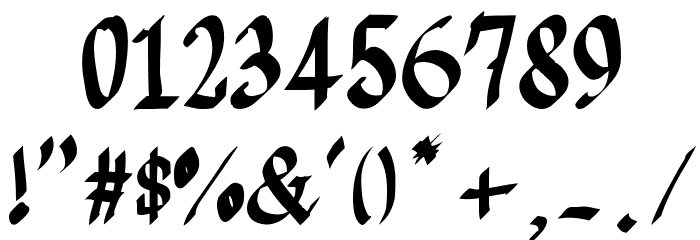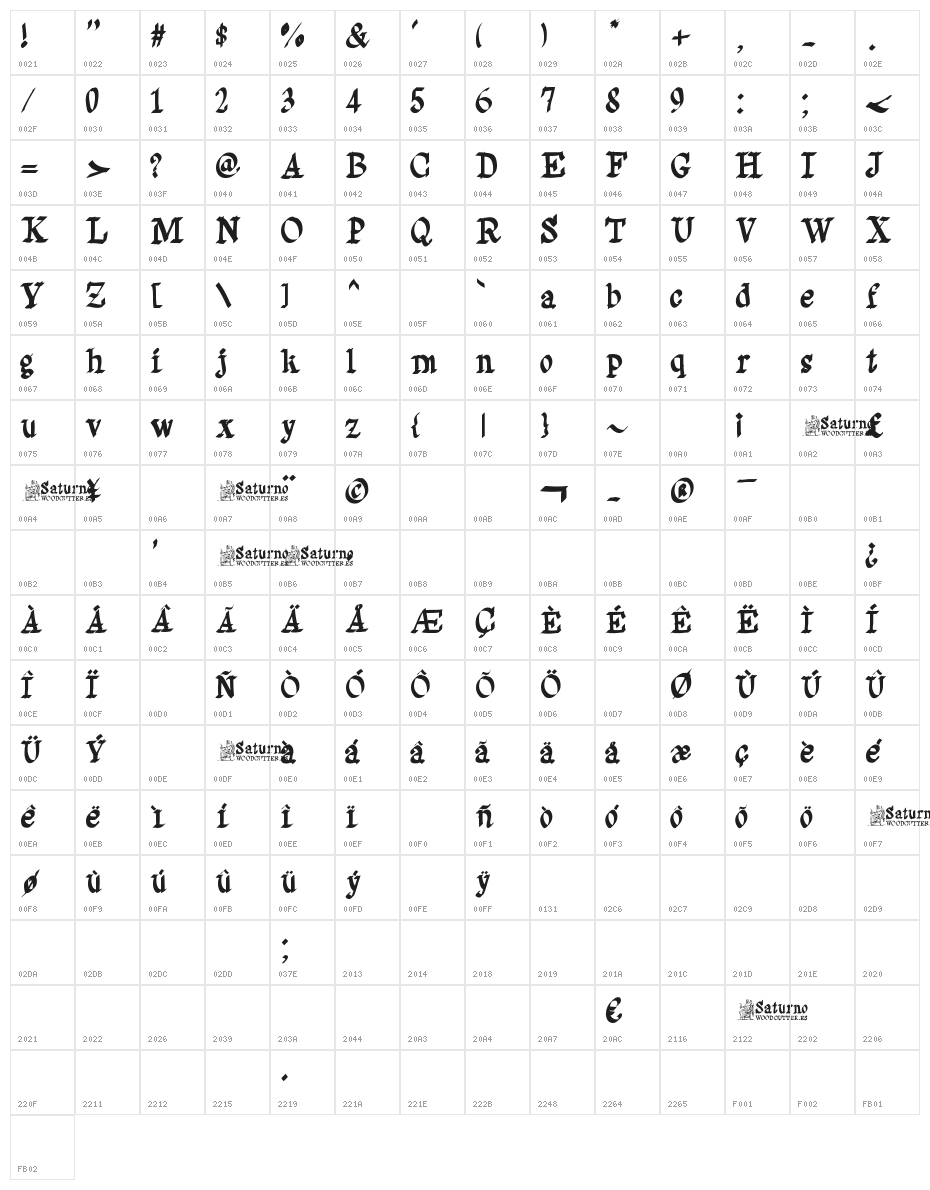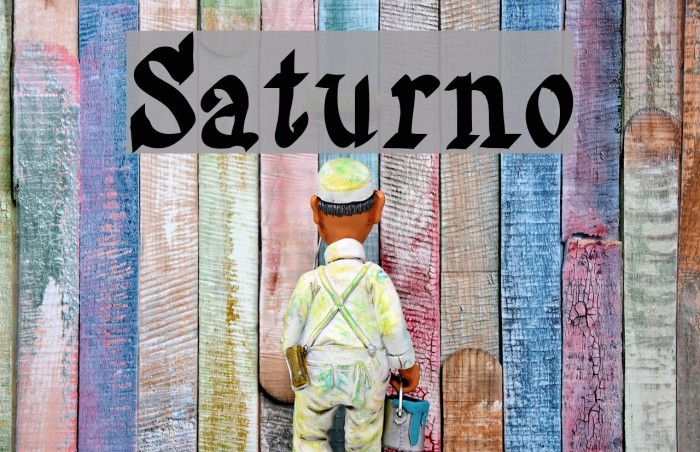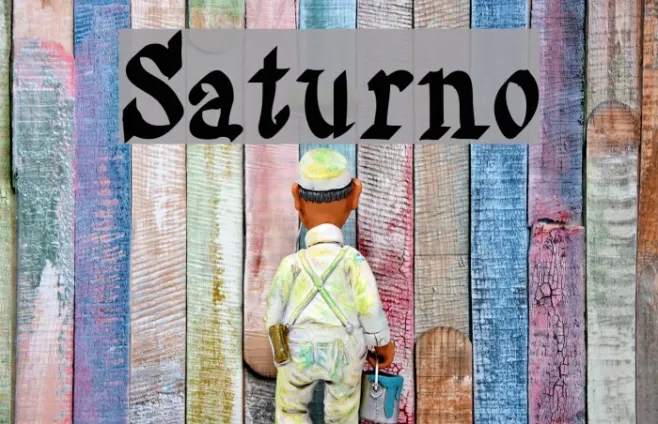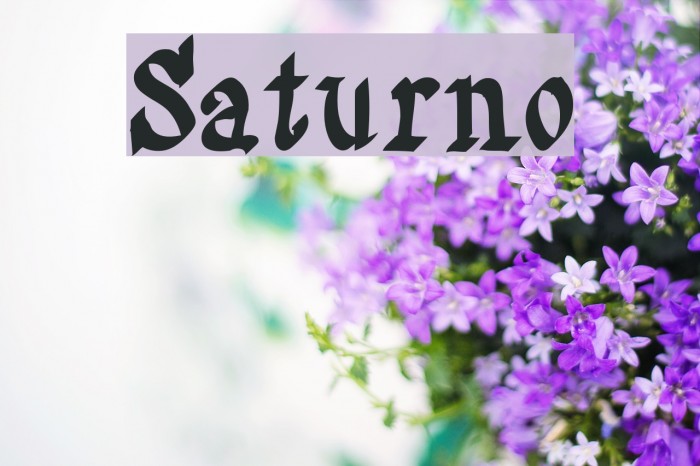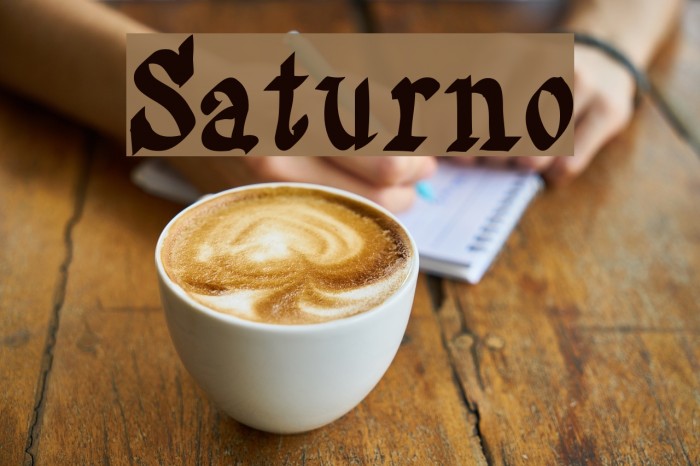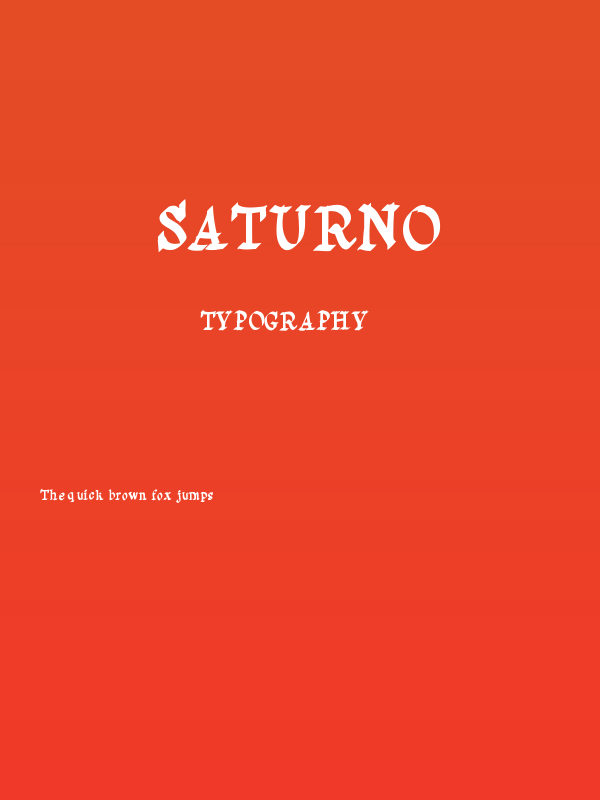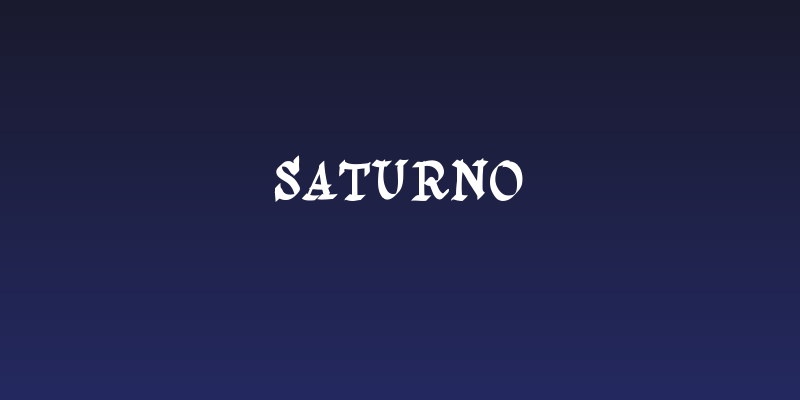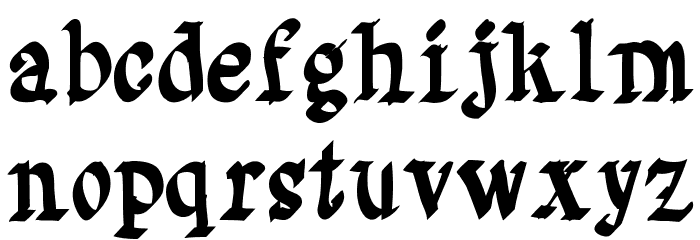
Saturno Font
Saturno Description
This font features a bold and dynamic style with sharp, angular serifs and a distinct medieval flair. The uppercase letters exhibit a strong presence with their pronounced serifs and slightly condensed forms, while the lowercase letters maintain a cohesive look with a touch of elegance. The numerals are bold and consistent, matching the overall aesthetic of the alphabet. Special characters are crafted with the same attention to detail, ensuring a uniform appearance across all glyphs. The font's unique style makes it suitable for projects that require a historical or gothic touch, while its readability ensures it remains functional for various design purposes.
| Proposed Projects | Ideal for historical-themed designs, book covers, posters, and branding that requires a gothic or vintage touch. |